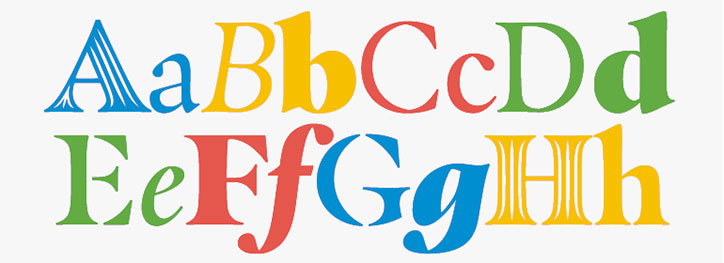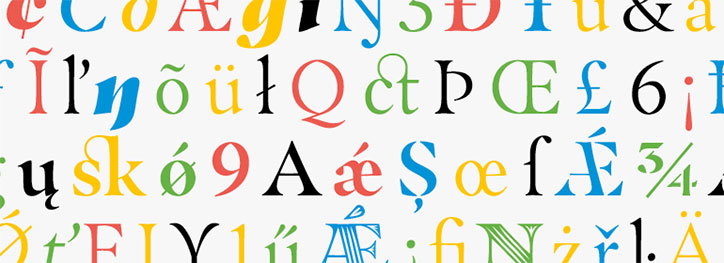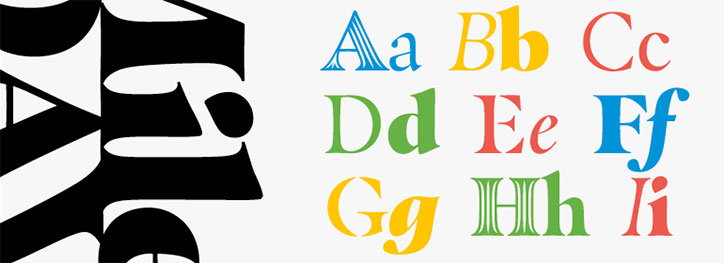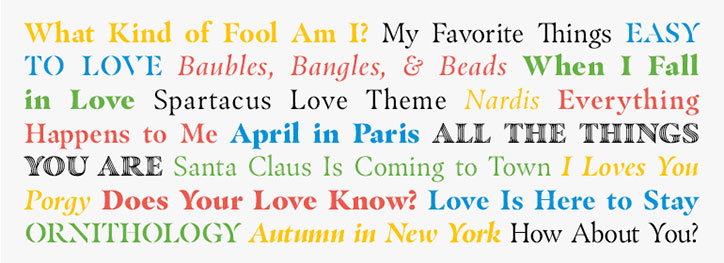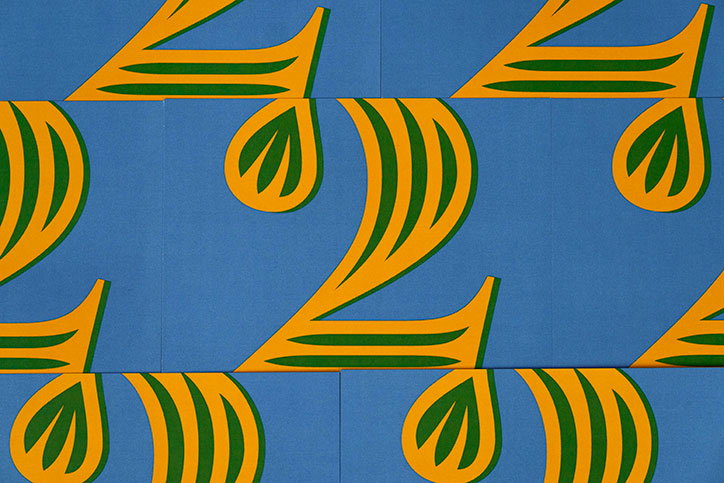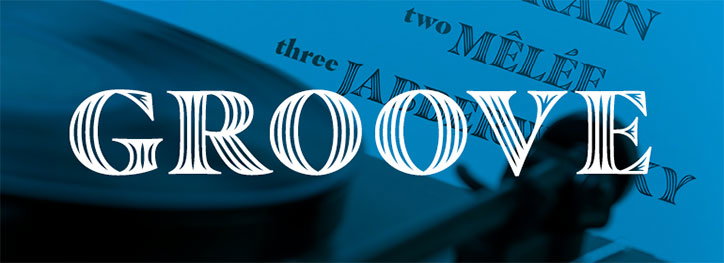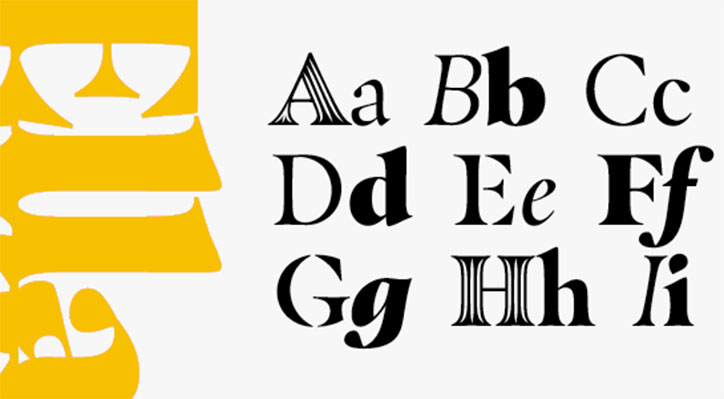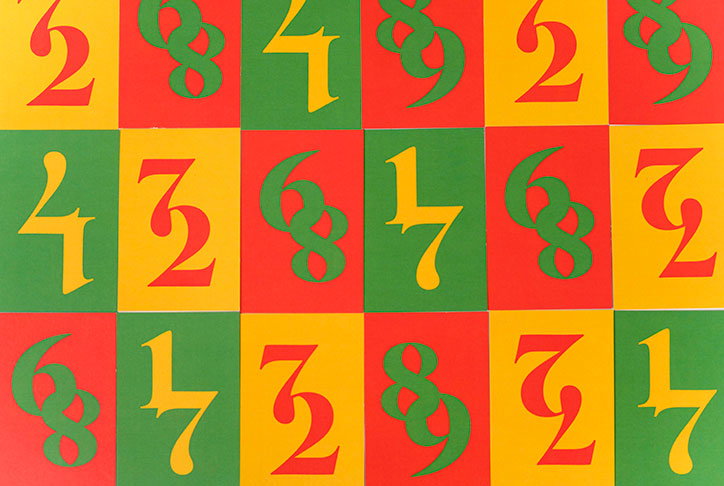
Monotype’s Masqualero typeface is inspired by Miles Davis
Type designer Jim Ford, part of Monotype’s in-house studio, came up with the idea for Masqualero while listening to Miles Davis, he says. The qualities of Miles and the music he created inspired Jim to create serif letterforms “as complex and contradictory as the musician himself”, with an eclectic variance of styles within the one font.
The serif face comes in eight versions, including six weights – light to extra black – plus two specialist iterations called Stencil and Groove, the latter featuring tapered stripes within the letter surface.
At lighter weights the typeface is fairly traditional and sophisticated, but in Bold, Black and Extra Black, and particularly in italic, the letter shapes become softer, contrasting thick and thin strokes. The Groove version is fairly flamboyant, shown in caps that resemble classical columns.
“Its detail and sculptural quality make it well suited for luxury goods, publishing, mastheads, headlines, logos, packaging, signage, book covers and annual reports – anywhere that must capture and hold the attention of the audience,” says Monotype.
Jim, the designer says: “With the Masqualero typeface, there’s never a hair out of place,” said Ford. “It’s the black tuxedo or stiletto heels – it dresses up words.”
Monotype: Masqualero